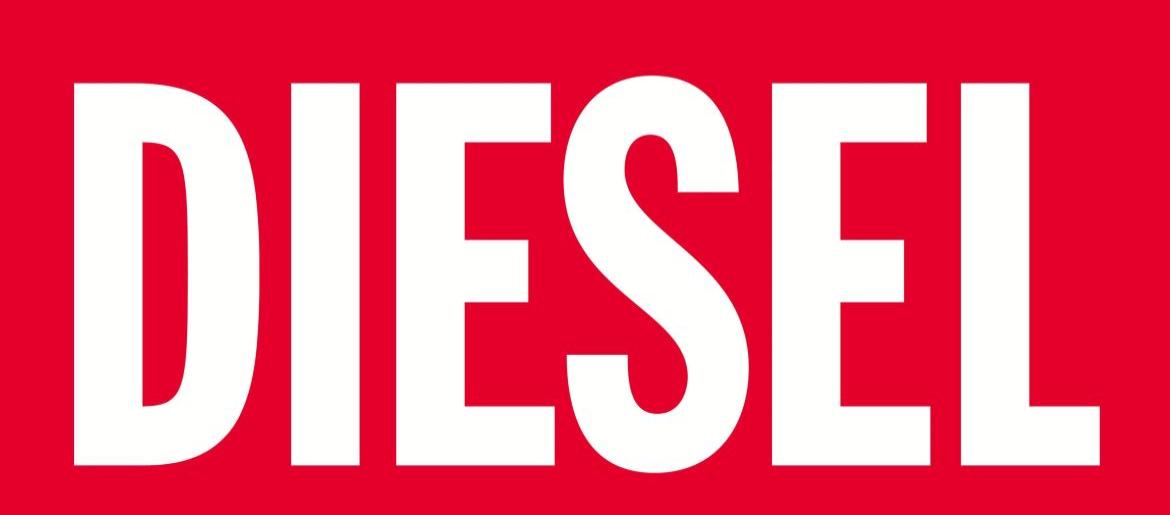
Diesel Font
What Font is Diesel?
DIESEL 2025 Font showcases bold minimalism and industrial strength, reflecting the brand’s fearless and modern aesthetic. The typography used in the latest DIESEL 2025 branding is most likely Franklin Gothic Std Extra Condensed, a commercial font originally designed by Morris Fuller Benton recognized for its compact yet powerful structure. Its tall, narrow letterforms capture attention instantly, symbolizing confidence and forward-thinking design. For those wanting a similar look, we’ve also found a free alternative font that mirrors the bold energy of DIESEL’s typography.